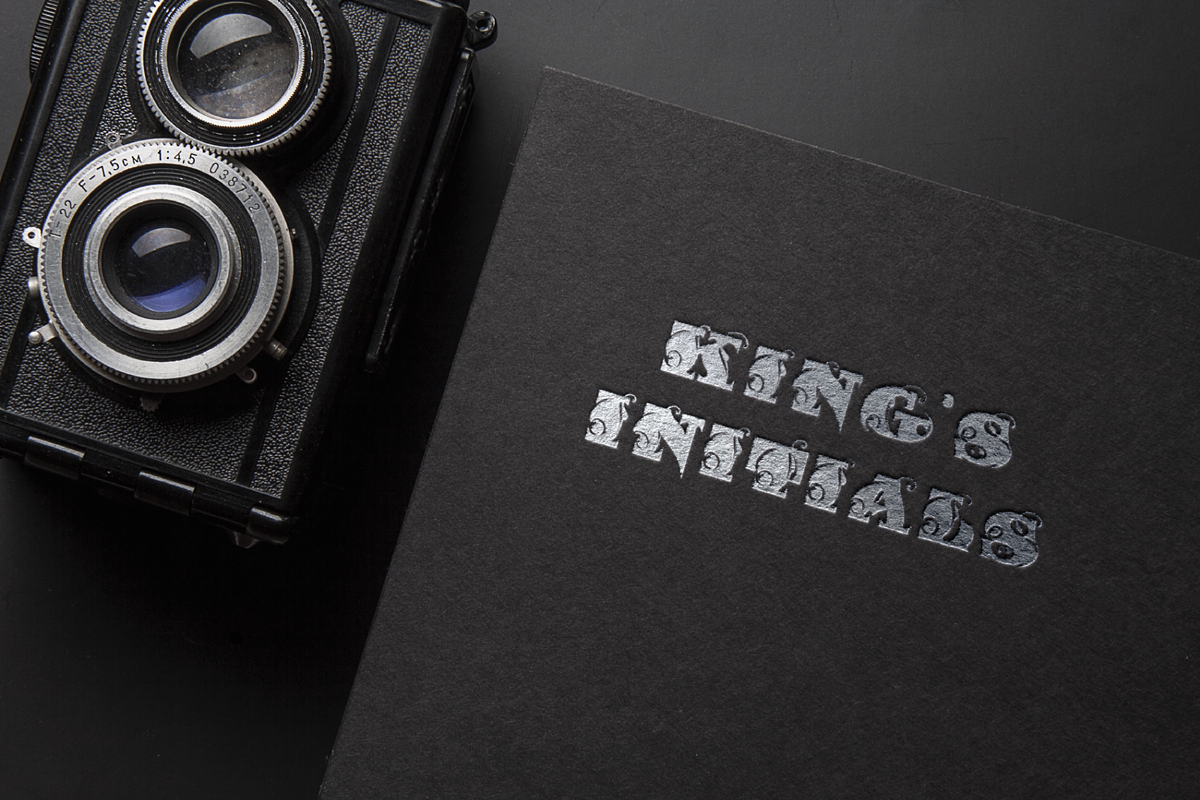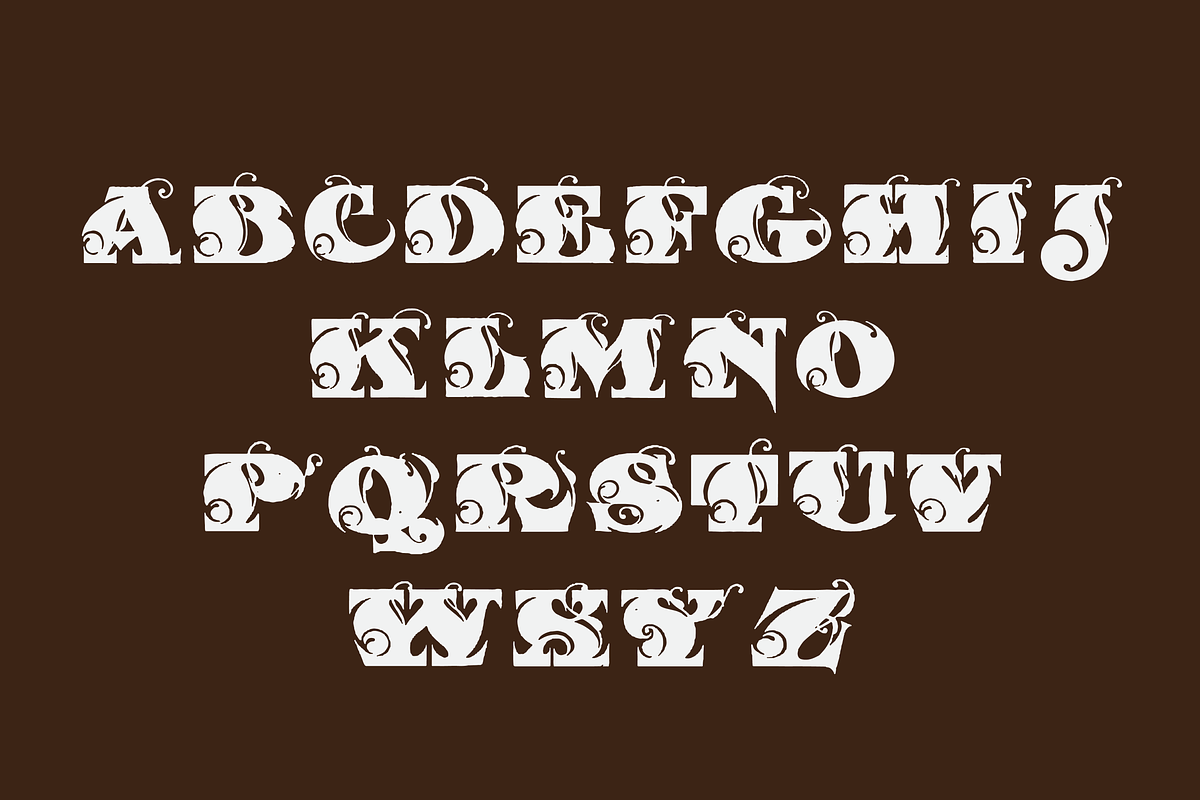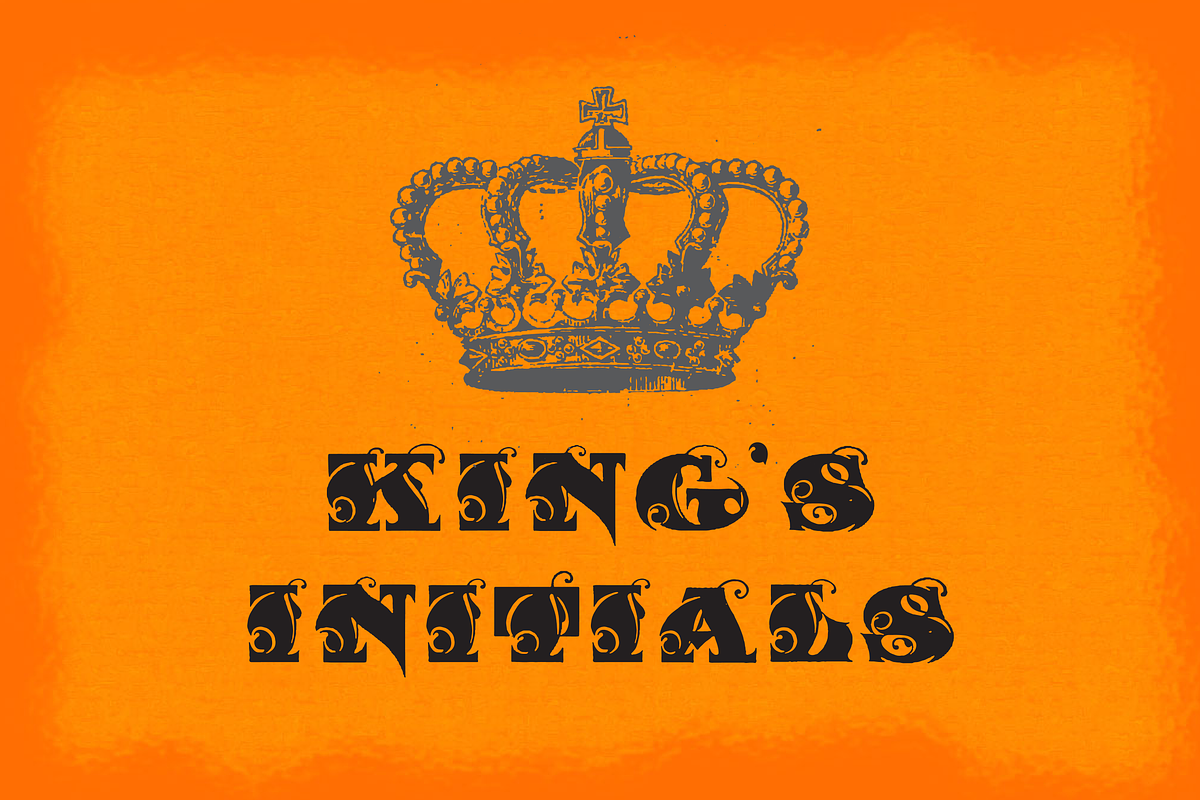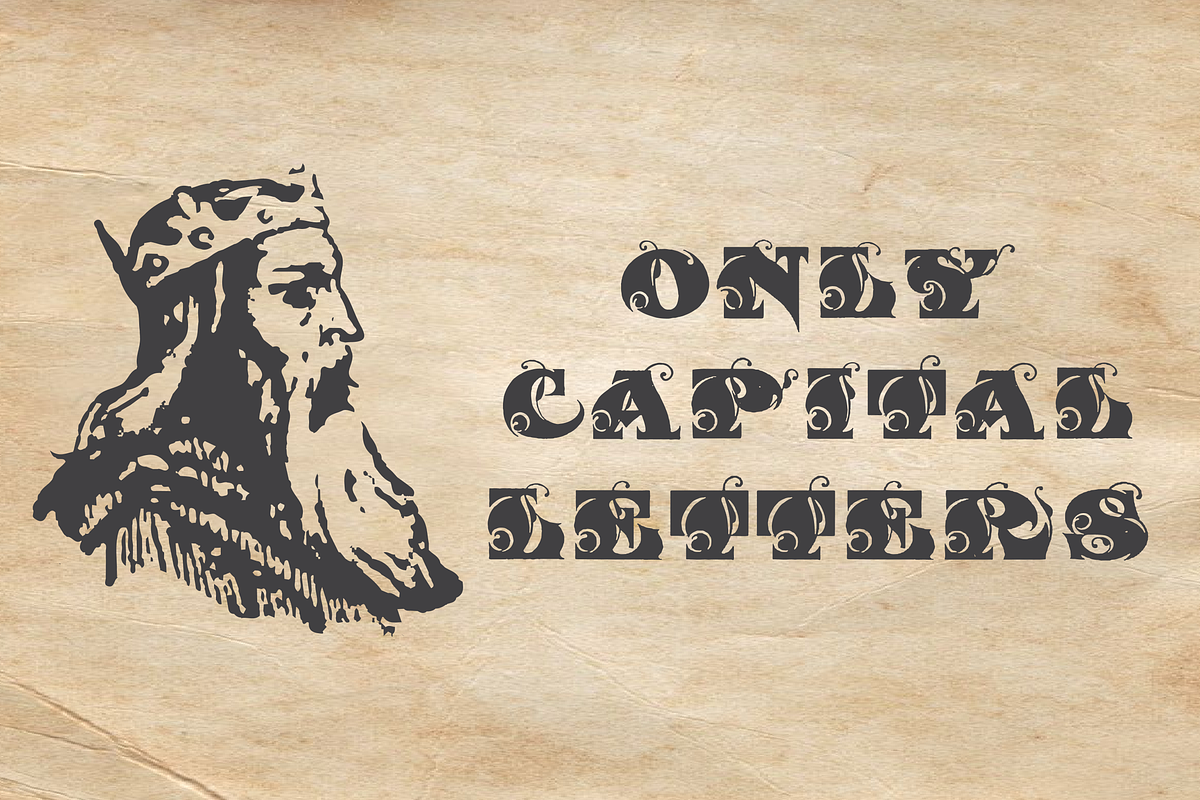
Kings Initials
We found these beautiful initials in one of scrap book early 18th century. we bringing these in font format, PNG and EPS to give you a great look of King's initials. Decorative initials have only Caps.